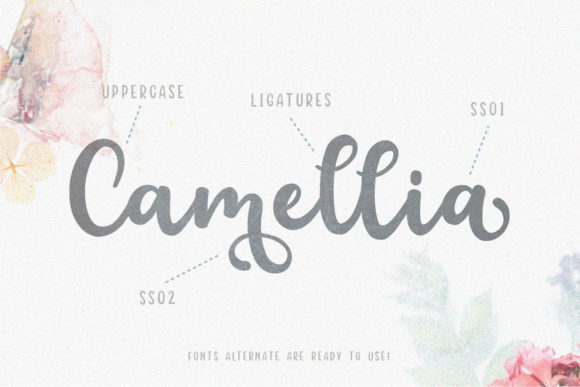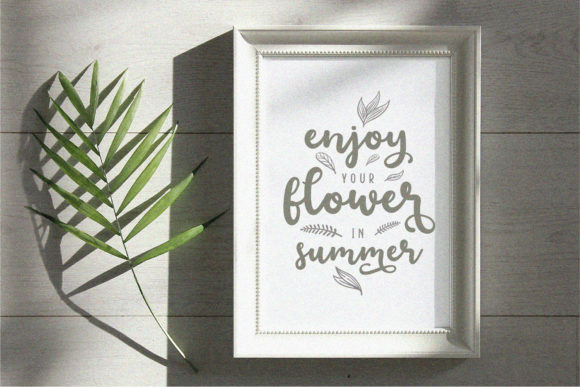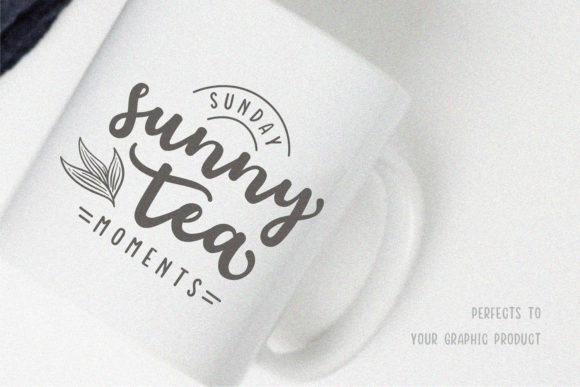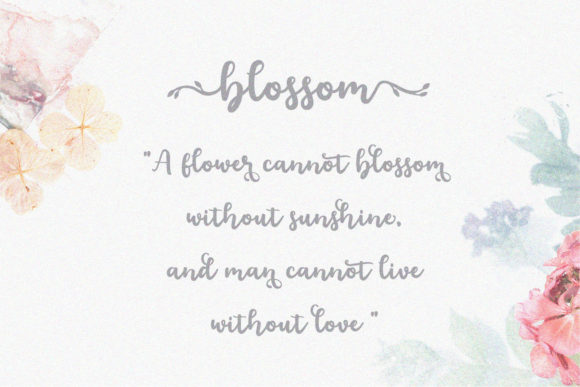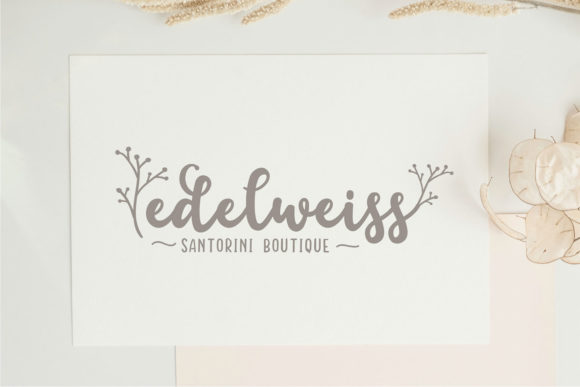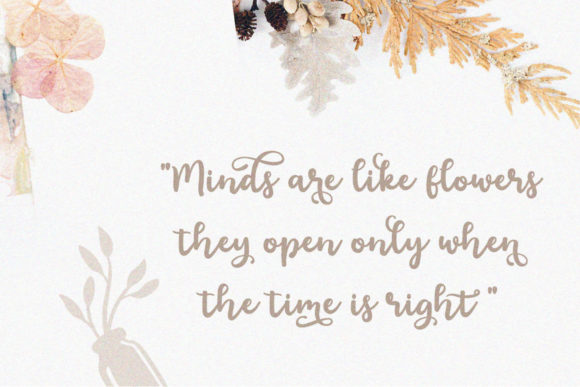
Introducing Floristy Font: A Timeless Brush Style Handwritten Masterpiece
Are you tired of using the same old fonts for your designs? Look no further! Floristy Font is a game-changer, offering a unique brush style handwritten aesthetic that will elevate your creations to the next level. With its completely different and timeless style, Floristy Font is sure to capture the hearts of designers and crafters alike.
What Makes Floristy Font So Special?
Floristy Font boasts a distinctive brush style that sets it apart from other fonts. Its unique charm and character make it perfect for creating spectacular designs that demand attention. Whether you’re working on a logo, invitation, or social media graphic, Floristy Font is sure to make your project stand out.
One of the best features of Floristy Font is its PUA (Private Use Area) encoding. This means that you can access all of the glyphs and swashes with ease, giving you complete creative control over your designs. No more tedious searching for the perfect character or swash – with Floristy Font, it’s all at your fingertips.
With Floristy Font, the design possibilities are endless. Use it to create:
- Stunning logos and branding materials
- Breathtaking wedding invitations and stationery
- Eye-catching social media graphics and posts
- Beautiful craft projects, such as papercrafts and scrapbooking
Why Choose Floristy Font?
So why choose Floristy Font over other fonts? Here are just a few reasons:
- Unique style: Floristy Font offers a truly one-of-a-kind aesthetic that’s sure to set your designs apart.
- Timeless appeal: Unlike trendy fonts that quickly go out of style, Floristy Font has a timeless quality that will ensure your designs remain stylish for years to come.
- Easy to use: With PUA encoding, accessing glyphs and swashes is a breeze, making it easy to get creative with your designs.
Tips for Using Floristy Font
To get the most out of Floristy Font, here are a few tips:
- Experiment with different sizes and colors: Floristy Font looks great in a variety of sizes and colors, so don’t be afraid to get creative!
- Mix and match glyphs and swashes: With PUA encoding, you can easily access a range of glyphs and swashes to add extra flair to your designs.
- Pair it with other fonts: Floristy Font pairs beautifully with other fonts, so try combining it with a sans-serif or script font for added interest.
In conclusion, Floristy Font is a must-have for designers and crafters looking to add a touch of elegance and sophistication to their creations. With its unique brush style, PUA encoding, and endless design possibilities, Floristy Font is sure to become a favorite in your font collection. So why wait? Fall in love with Floristy Font today and start creating spectacular designs that will leave a lasting impression!